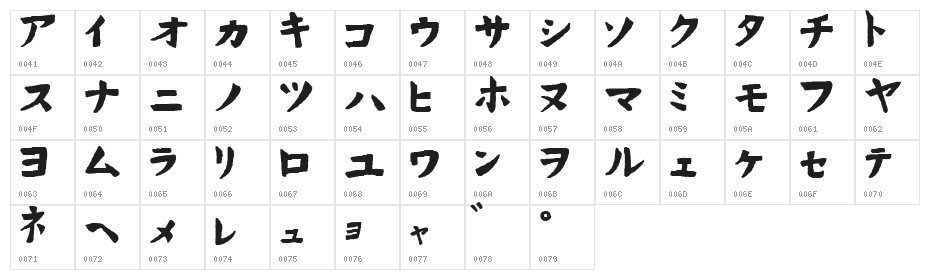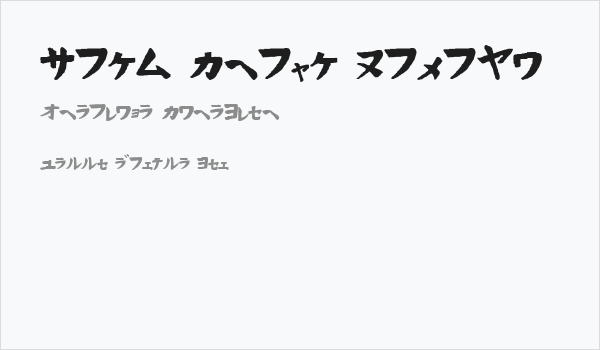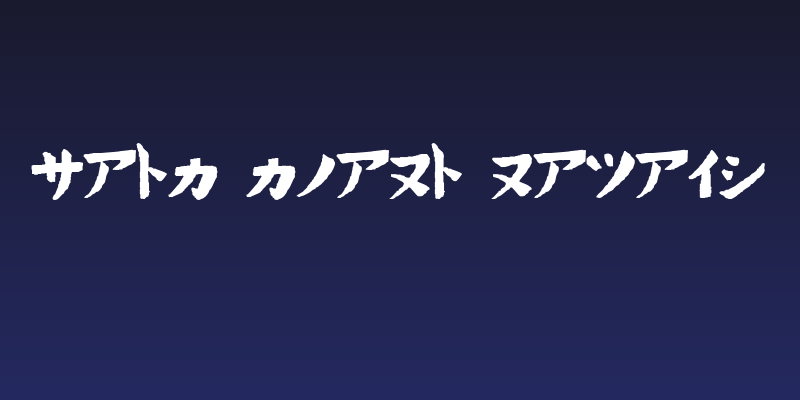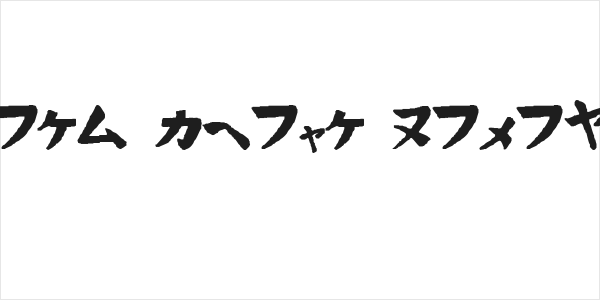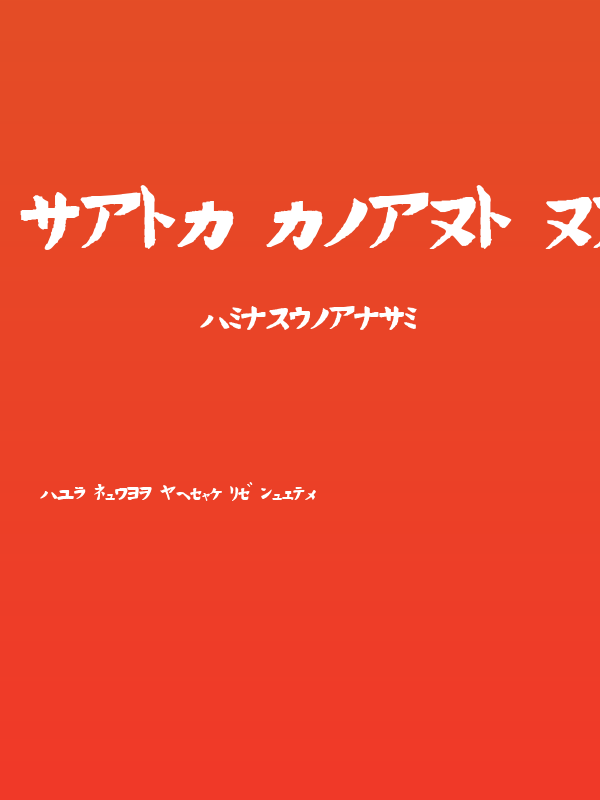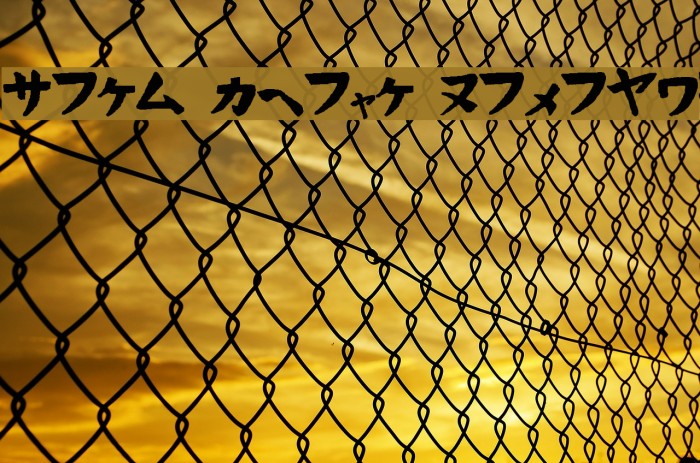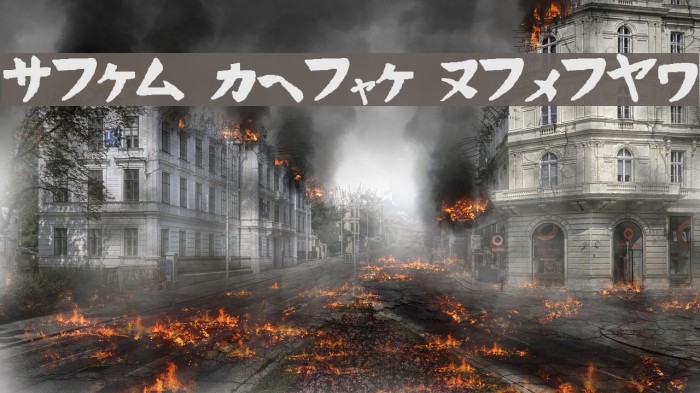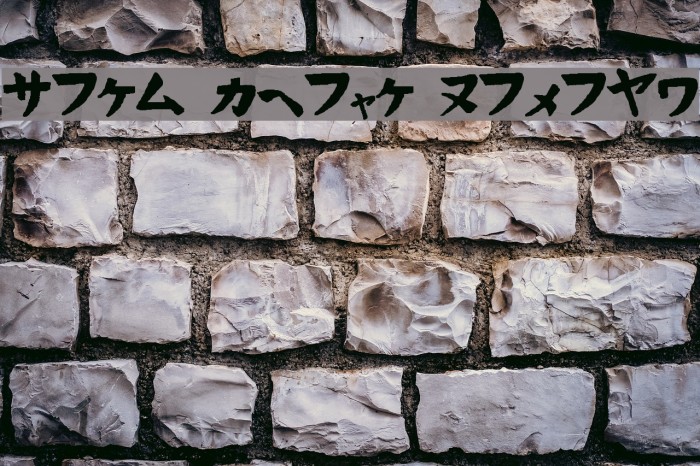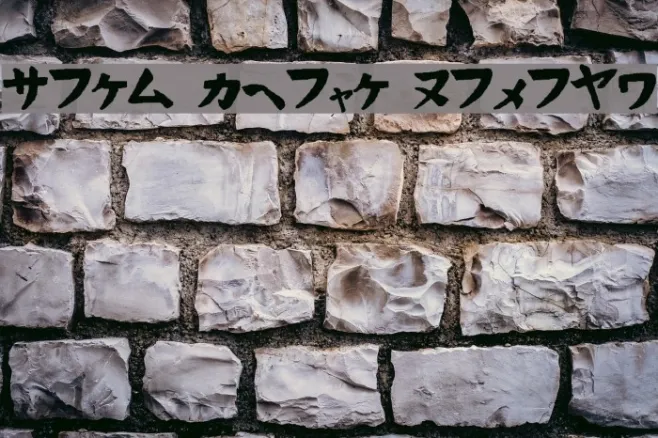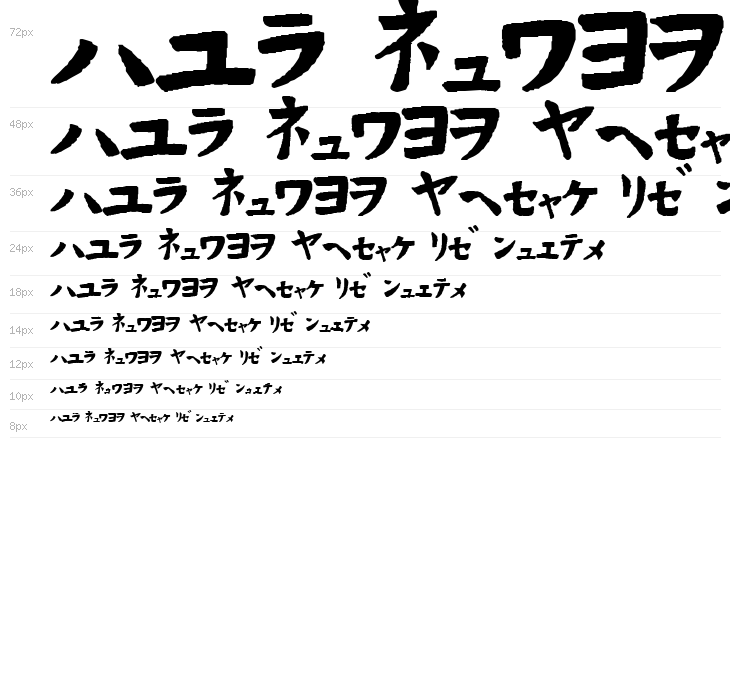
Hand Drawn Wasabi Font
Hand Drawn Wasabi Description
This font features a hand-drawn style with a bold and expressive character. The strokes are uneven, giving it a natural and organic feel, reminiscent of traditional calligraphy. The characters have a playful and artistic flair, with varying thicknesses that add to its dynamic appearance. The overall look is both casual and sophisticated, making it suitable for creative projects that require a personal touch. The font's unique style captures attention and conveys a sense of authenticity and creativity.
| Proposed Projects | Ideal for artistic projects, branding, packaging design, posters, and invitations that require a personal and creative touch. |